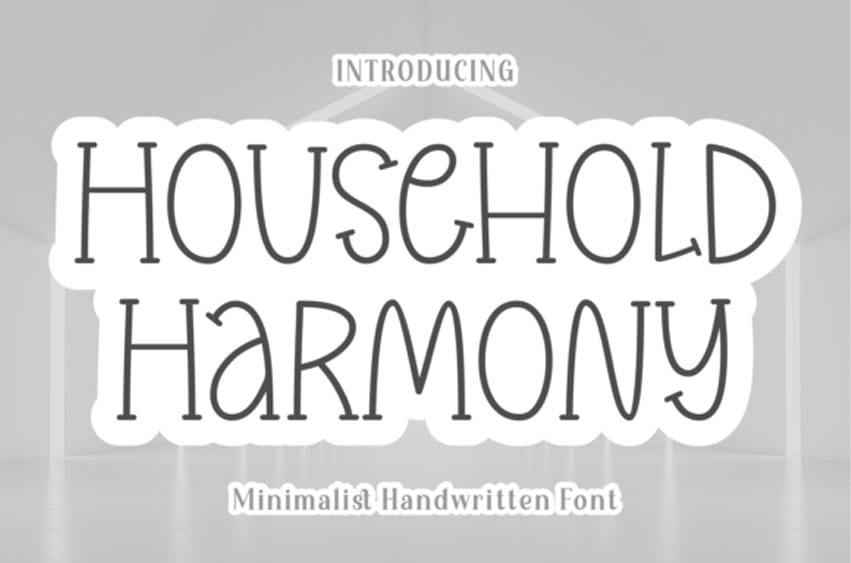
Household Harmony Font is a cute, thin-lettered, and quirky serif font. No matter the topic, this font will be an incredible asset to your font library, as it has the potential to elevate any creation.